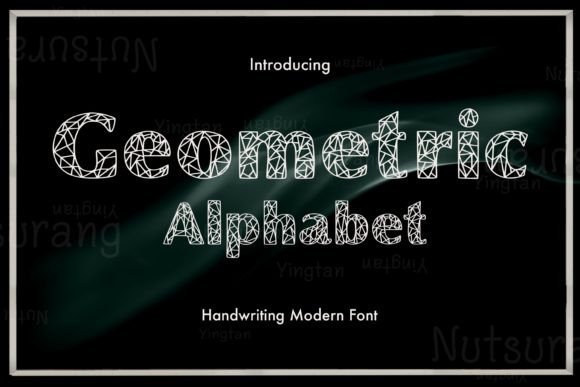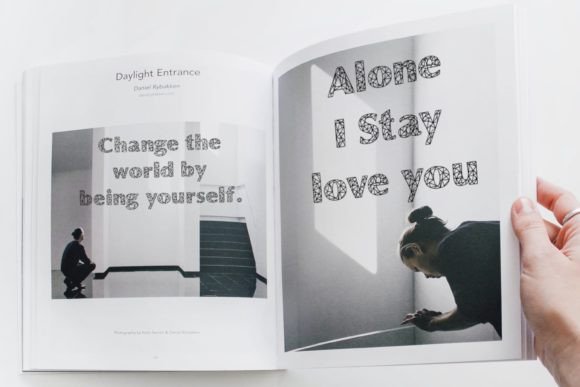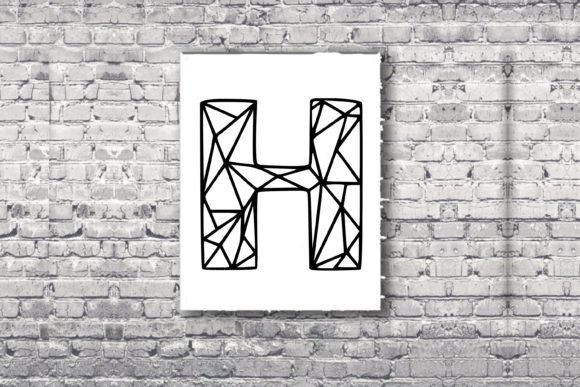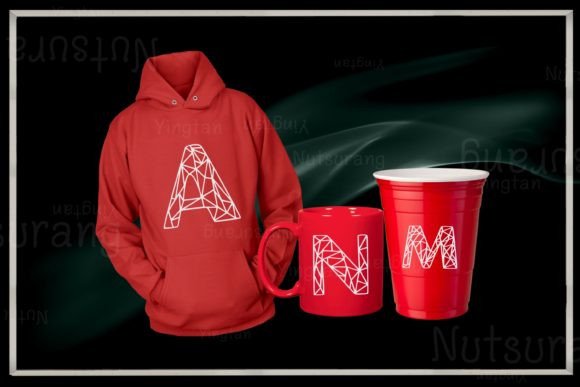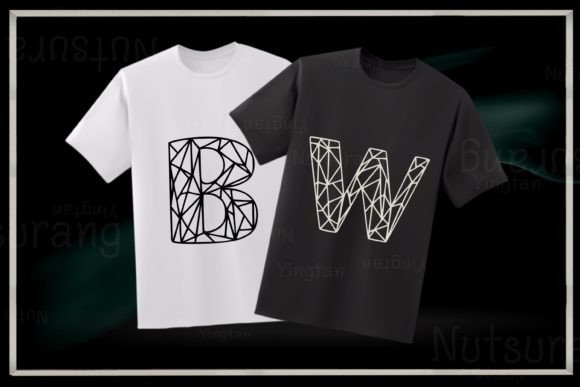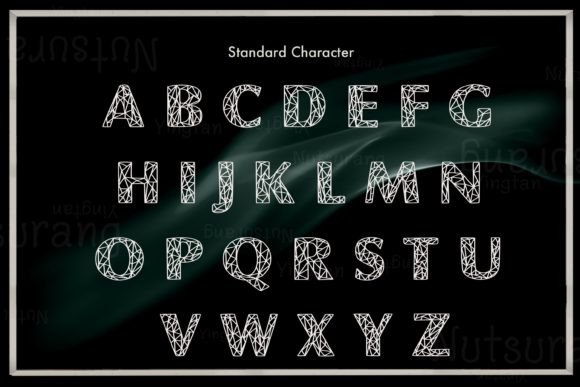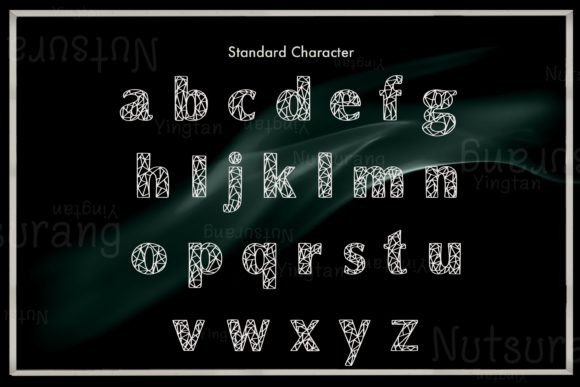
Unlock the Power of Geometric Alphabet Font
You’ve just landed on a design brief that requires you to create a stunning brand identity for a new food truck. The client wants something playful, casual, and attention-grabbing. As you start brainstorming ideas, your mind begins to wander, and you start thinking about fonts that can bring your concept to life. That’s when you stumble upon the Geometric Alphabet Font – a game-changer for designers who want to make a lasting impression.
The Geometric Alphabet Font is a unique and versatile typeface that’s perfect for creative branding and packaging projects. Its geometric design makes it stand out from the crowd, and its playful feel ensures that it’s always on-trend. As a designer, you’ll love the flexibility and expressiveness of this font, which can be used to convey a wide range of emotions and moods.
Geometric Alphabet Font Key Features
- Unique Characteristics: The Geometric Alphabet Font features a unique blend of geometric shapes and clean lines, creating a modern and minimalist aesthetic that is perfect for graphic designers and typographers.
- Font Weight and Style: The font comes in multiple weights, including Light, Regular, Bold, and Black, as well as a variety of styles, such as Italic and Oblique, allowing for versatility and flexibility in design applications.
- Language Support: The Geometric Alphabet Font supports a wide range of languages, including Latin, Cyrillic, and Greek, making it an ideal choice for global branding and design projects.
- Scalability: The font is designed to be highly scalable, allowing it to maintain its clarity and legibility at various sizes and resolutions, making it perfect for use in digital and print applications.
Geometric Alphabet Font Review
I’ve had the chance to work with the Geometric Alphabet Font, and I must say it’s been a mixed bag for me.
- Unique aesthetic: The geometric design of this font really stands out and adds a touch of modernity to any project.
- High-resolution quality: The font looks crisp and clear even at large sizes, making it perfect for digital applications.
- Easy to read: Despite its geometric design, the font is surprisingly easy to read, even in smaller sizes.
- Limited versatility: The font’s geometric design makes it less suitable for projects that require a more traditional or classic look.
- Lack of bold weights: The font only comes in regular and italic weights, which can limit its use in certain situations.
- Not ideal for small text: While the font is easy to read, it can become a bit too busy when used in small text sizes.
Overall, I think the Geometric Alphabet Font is a great choice for projects that require a modern and edgy look. However, its limitations may make it less suitable for other types of projects. With a bit more versatility and a few additional weights, I think this font could be a real winner.
The Geometric Alphabet Font is perfect for creating eye-catching headings, titles, and logos. It’s also great for adding a touch of modernity to your designs. Some common use cases include:
- Creating a logo or brand identity
- Designing a brochure or flyer
- Adding a touch of modernity to a business card or resume